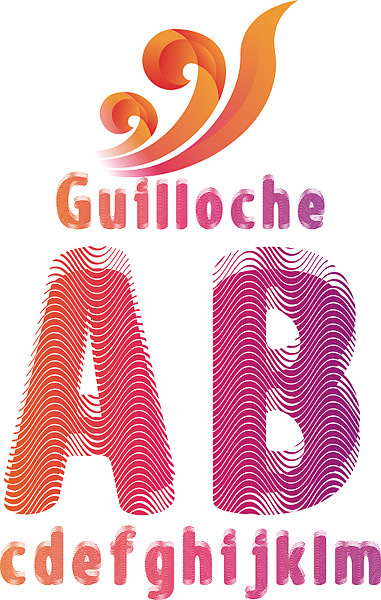
Guilloche, designed by Denis Sherbak, is a free patterned display font built from broad, rounded letterforms. Dense bands of fine, rippling lines fill each shape, recalling engraved security patterns and topographic contours. The uneven edges keep the letters lively and slightly distorted.
Poster lettering is its strongest role, since the repeated linework turns words into graphic texture. It can also shape music artwork and event graphics with an optical, hand-drawn pulse that feels more tactile than a clean geometric sans. Packaging and merchandise offer another good setting, especially for products tied to printmaking, pattern, or experimental art.